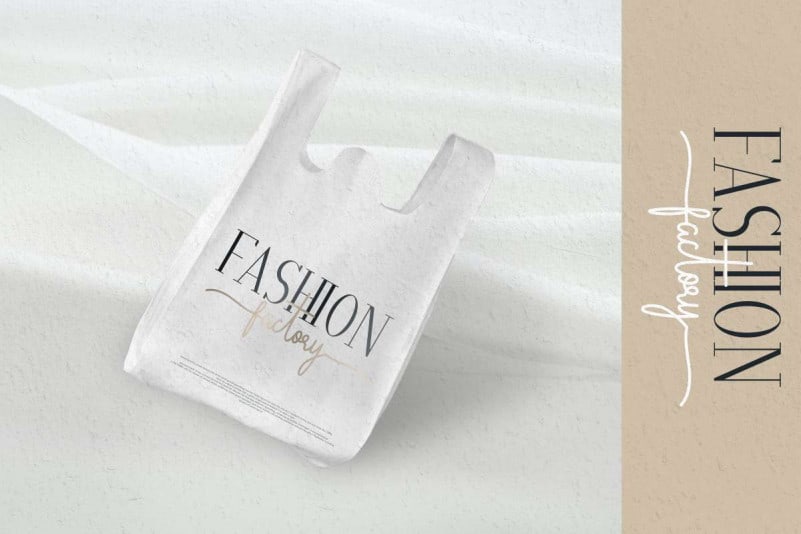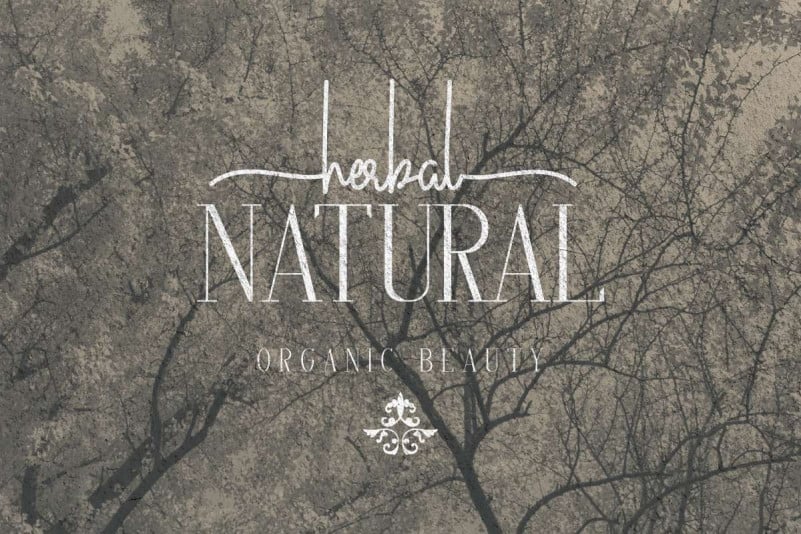
Explore a stunning typography pairing with Aulion Font Duo; Perfectly balanced set of elegant minimalist serif and realistic script typefaces.
Perfect for making bold stylish statements – or adding a touch of class to your designs like for branding, logos, invitation, mastheads, and more.